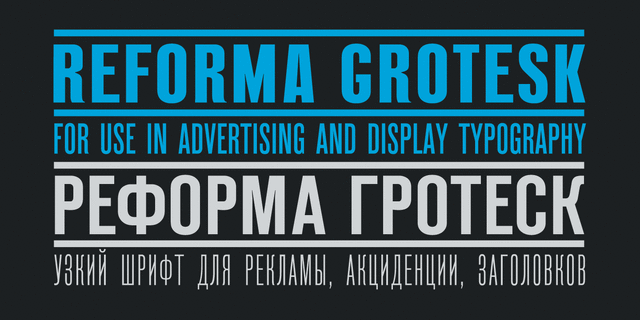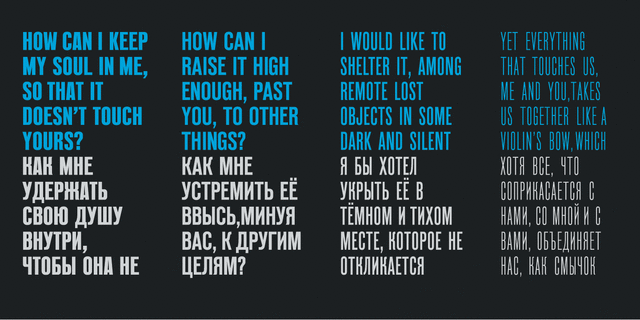
About Reforma GroteskThe design of Reforma Grotesk fonts is based on the letterforms of Russian pre-revolutionary hand composition typefaces: Uzky Tonky Grotesk («Condensed Thin Sans»), Poluzhirny Knizhny Grotesk («Semibold Book Sans») and Reforma of H. Berthold and O. Lehmann foundries (St. Petersburg). This extra compressed sans serif with distinctive letter shapes is typical for display fonts of the end of the 19th and early 20th centuries. The font is rewarded with the Galina Prize for the creative exploration of the Russian typographic tradition at Kyrillitsa’99 international type design competition in Moscow. It was designed in 1999 by Albert Kapitonov and released by ParaType in 2000.
Associations for font family Reforma GroteskTypeface personality and character:
tall, narrow, static, self-assured, loud, flat, urban, slim, solid, important, stable, motivating, ambitious, compressed, serious, adult, monotone, notable, crisp, responsible, monumental, workman, heavy, bright, active, splashy
skyscraper, city, news, property, building, construction, cinema, retail, store, mafia, brick, architecture, casino, workman, Cigarettes, cigars Typeface associated with age: